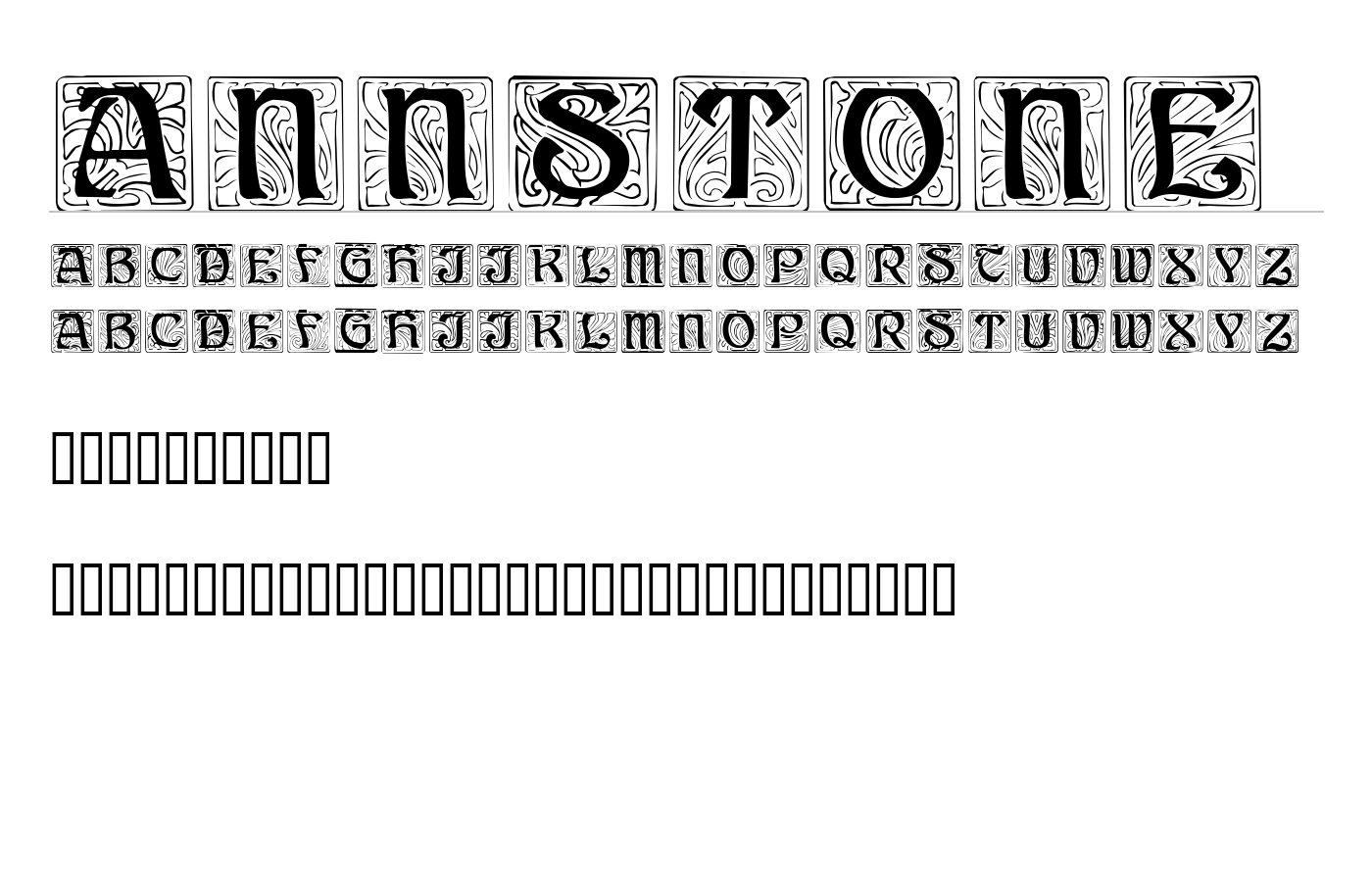
AnnStone is a decorative serif font featuring bold, vintage-style letterforms enclosed in ornate square frames filled with intricate leaf patterns. Its strong contrast, thick serifs, and detailed embellishments give it a classic, elegant feel perfect for eye-catching headlines, packaging, or branding that seeks a timeless and artistic touch. This font works well in designs that want to stand out with a distinctive, sophisticated personality.
AnnStone Font